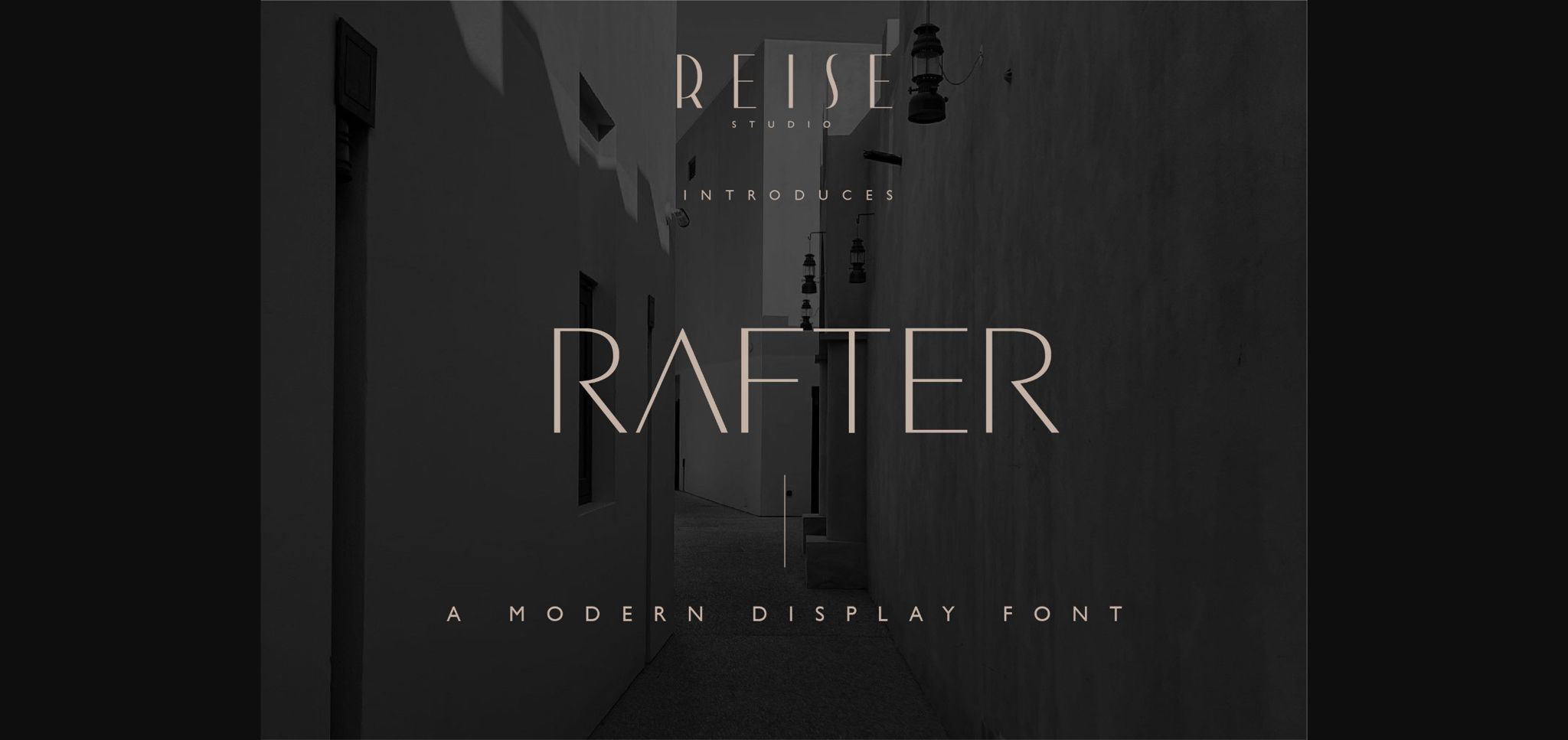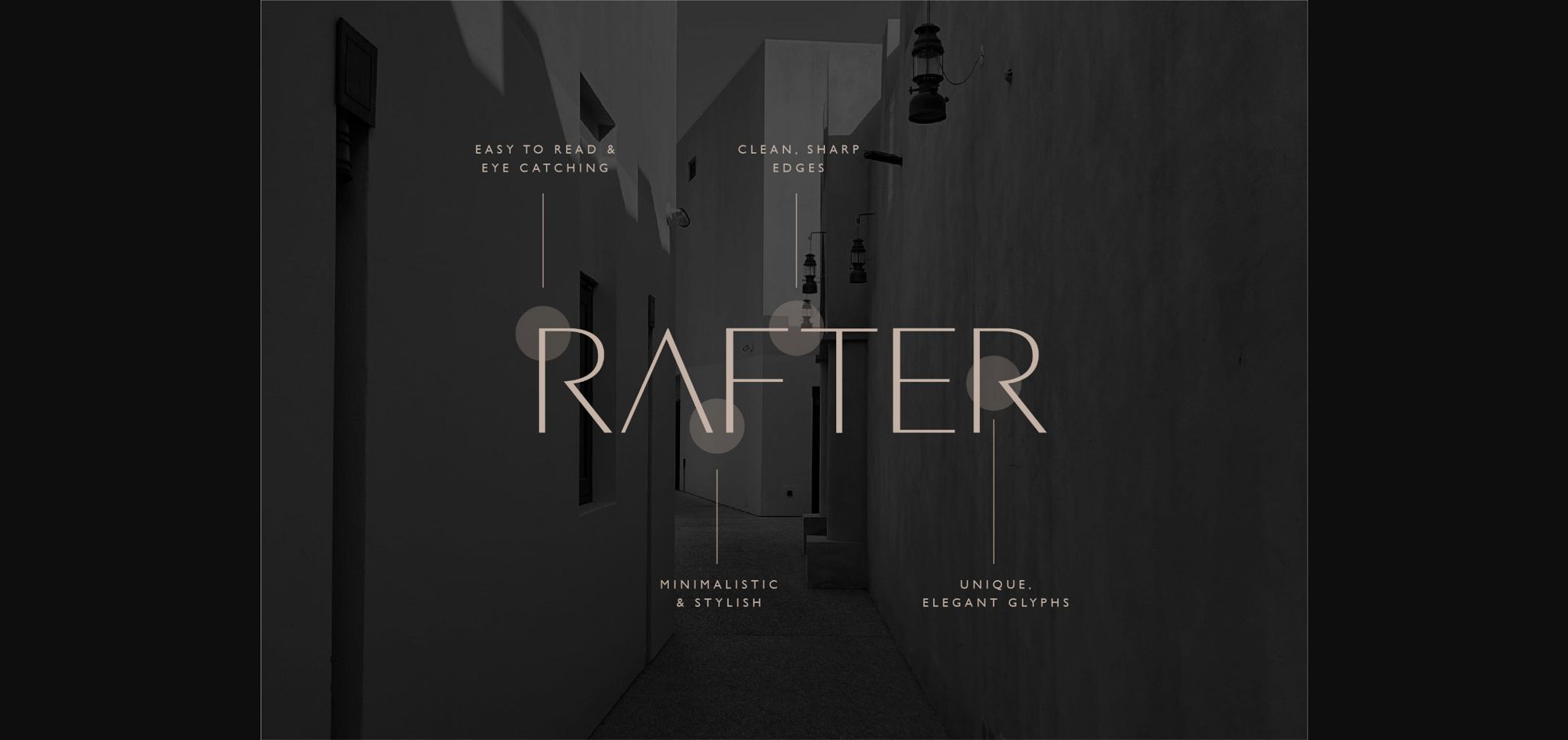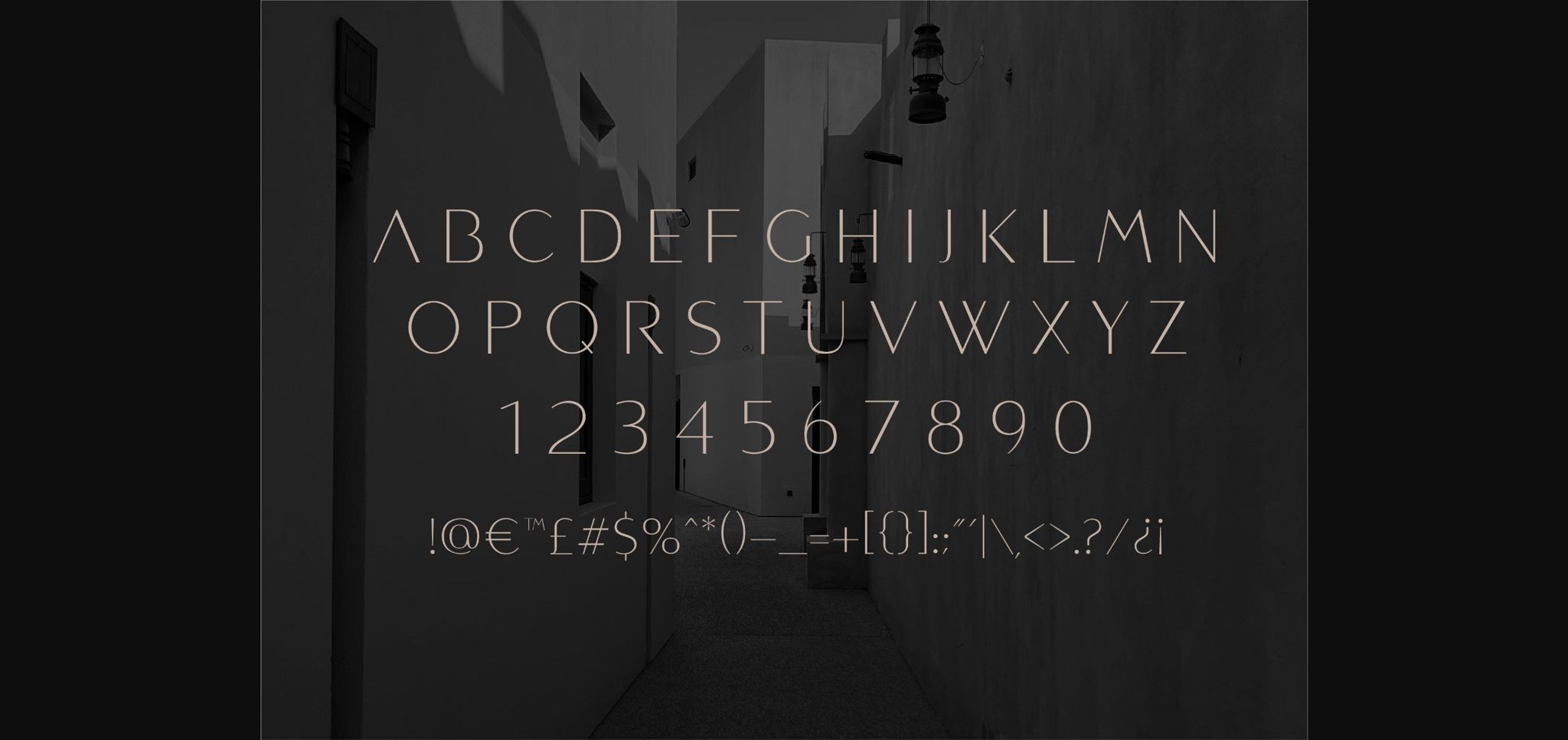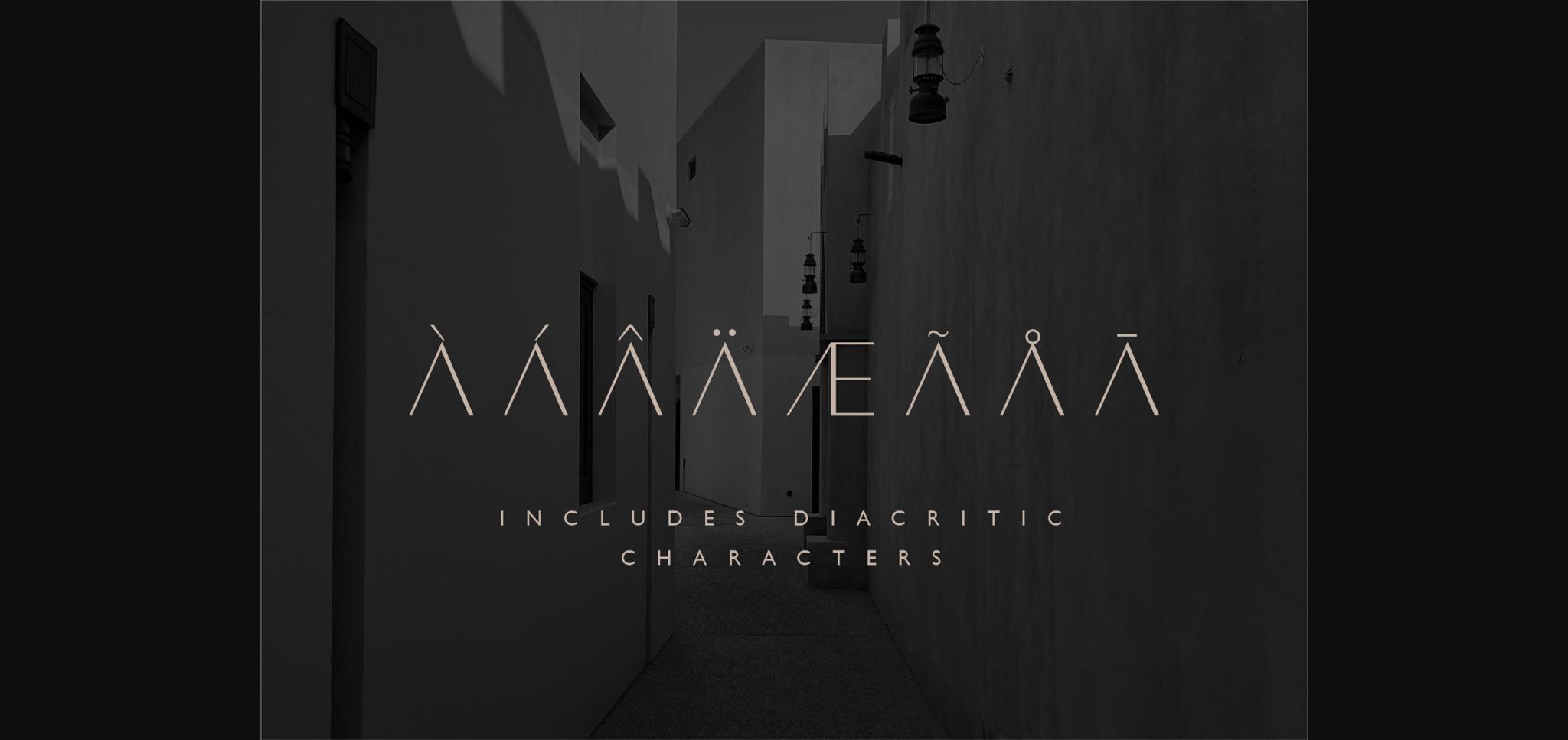
About Rafter Font
Rafter is a unique, sans-serif display font, exhibiting minimalist glyphs, perfect for modern branding and logo design, magazine and brochure headings, and more. This stylish, cutting-edge font is bound to make any project stand out and make a statement!